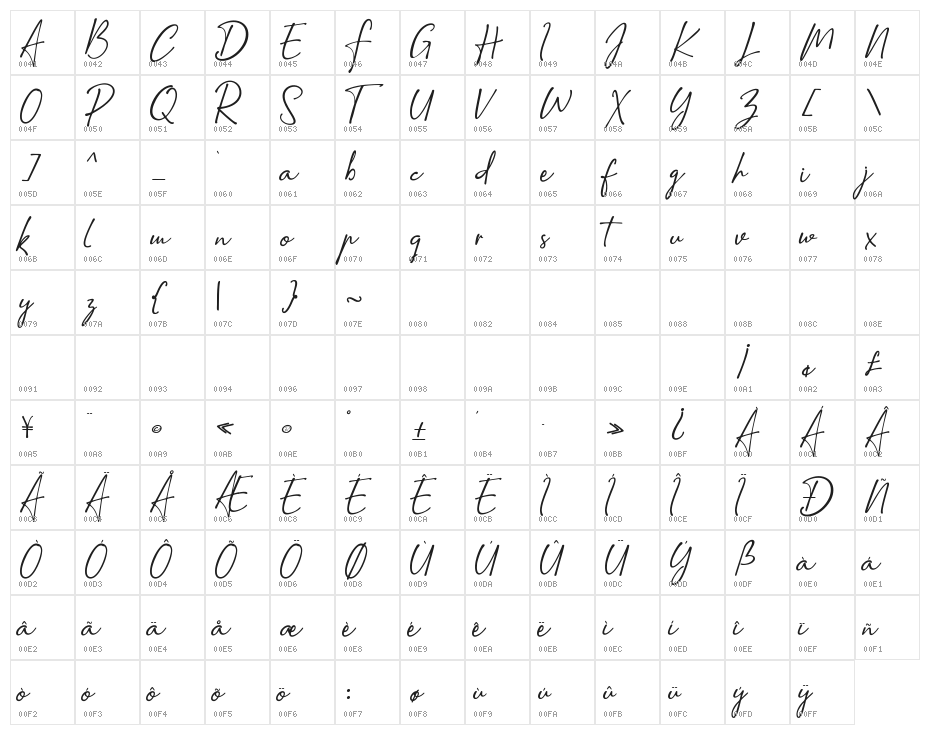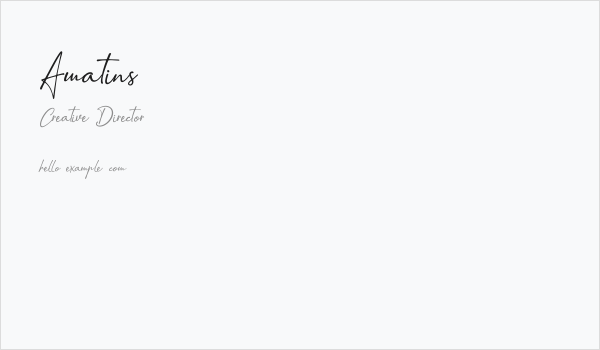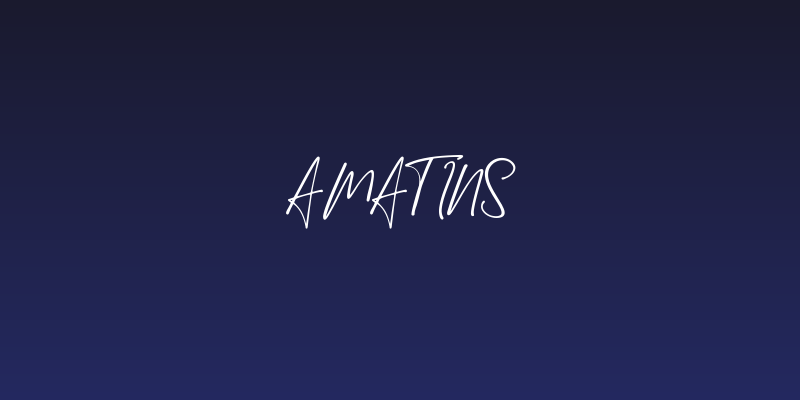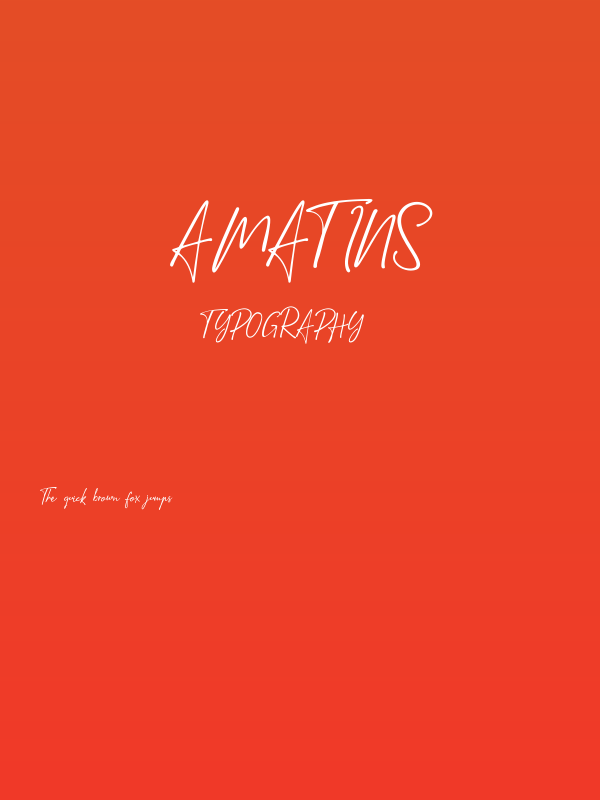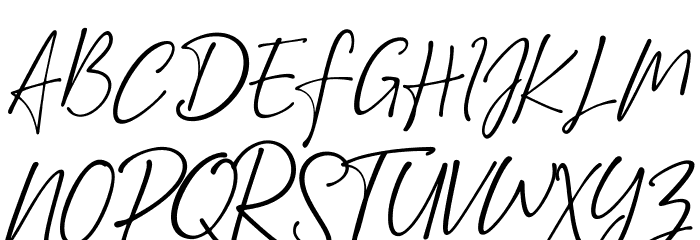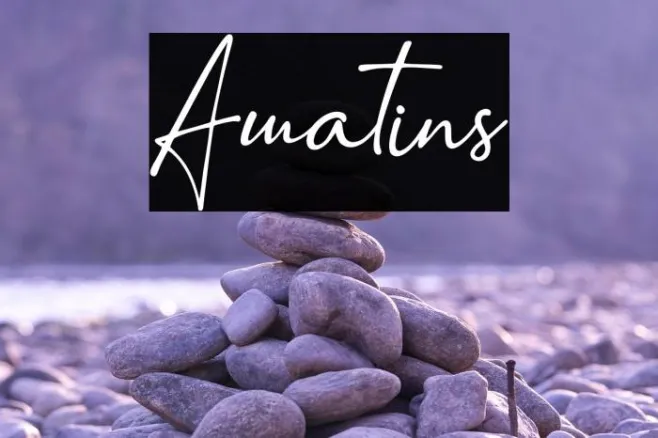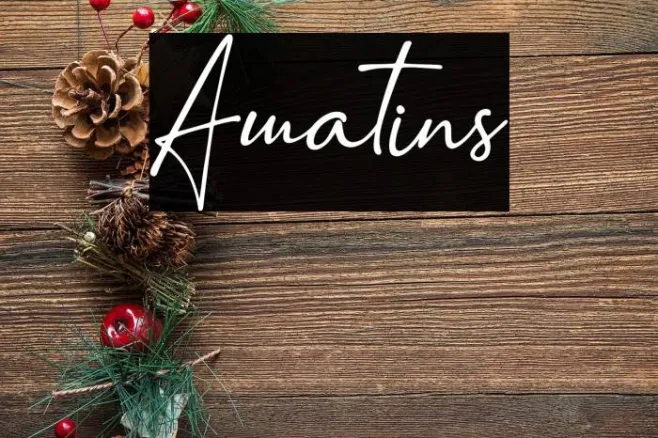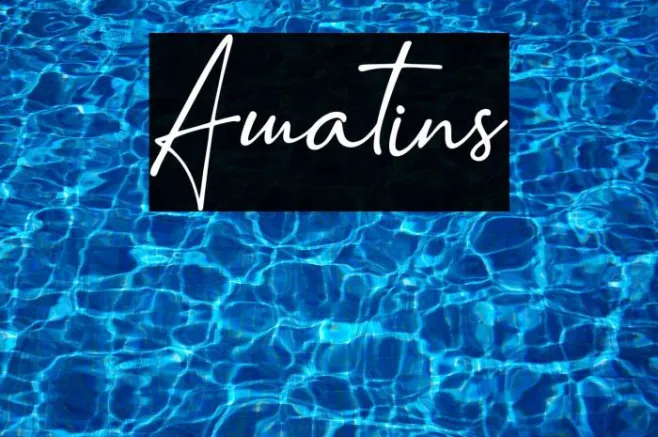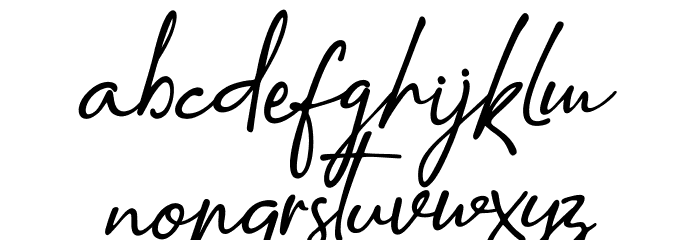
Amatins Font
Amatins Description
This font features a dynamic and fluid script style, characterized by its elegant and flowing letterforms. The uppercase letters are tall and slightly slanted, with a graceful, handwritten appearance. The lowercase letters maintain a consistent flow, with smooth curves and loops that enhance the overall aesthetic. The font exudes a sense of sophistication and creativity, making it suitable for projects that require a personal touch. Its unique style is both modern and timeless, offering versatility for various design applications.
| Proposed Projects | Ideal for wedding invitations, branding, greeting cards, and artistic projects that require a personal and elegant touch. |